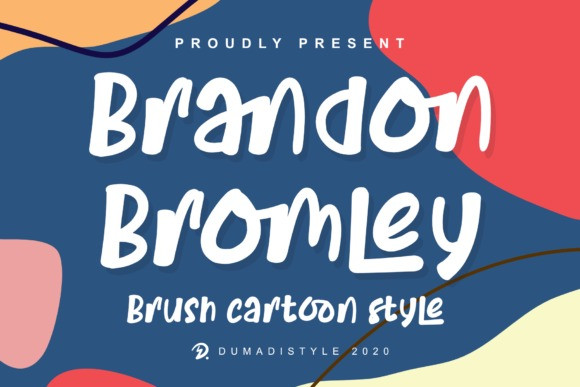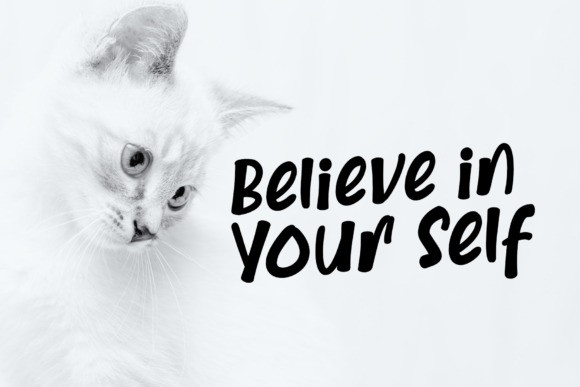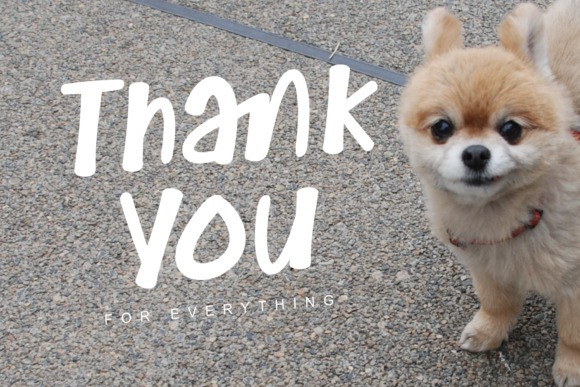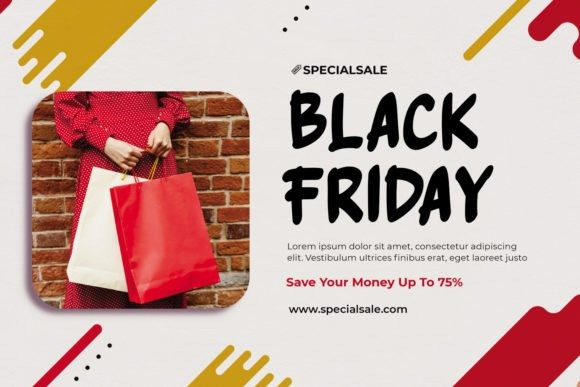
Brandon Bromley Display Font
Brandon Bromley is a cute and quirky display font. It will add an incredibly joyful touch to your designs. Add this beautiful display font to each of your creative ideas and notice how it makes them stand out!